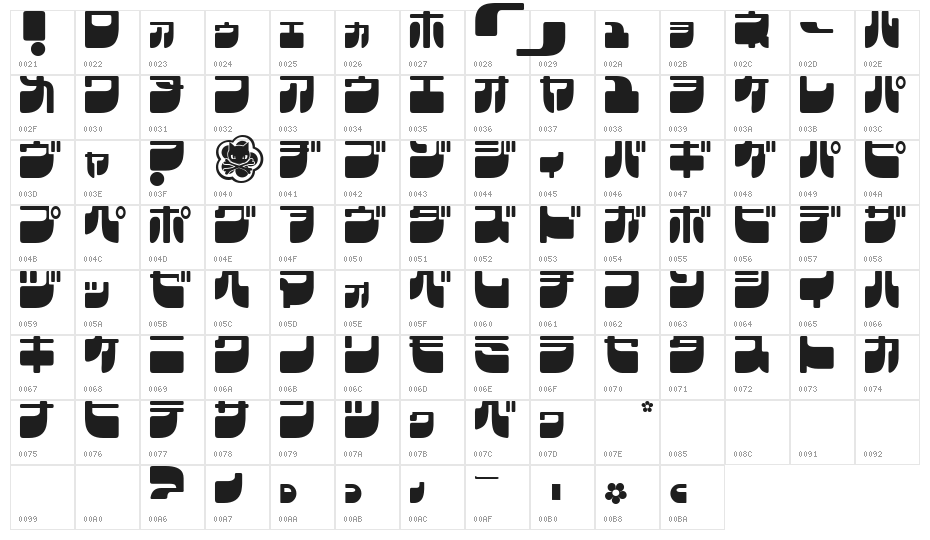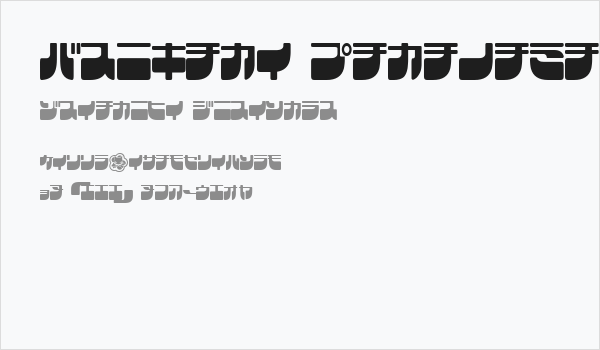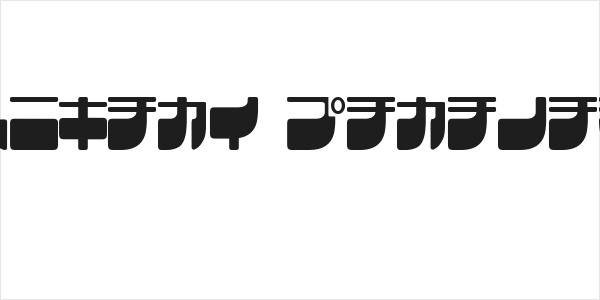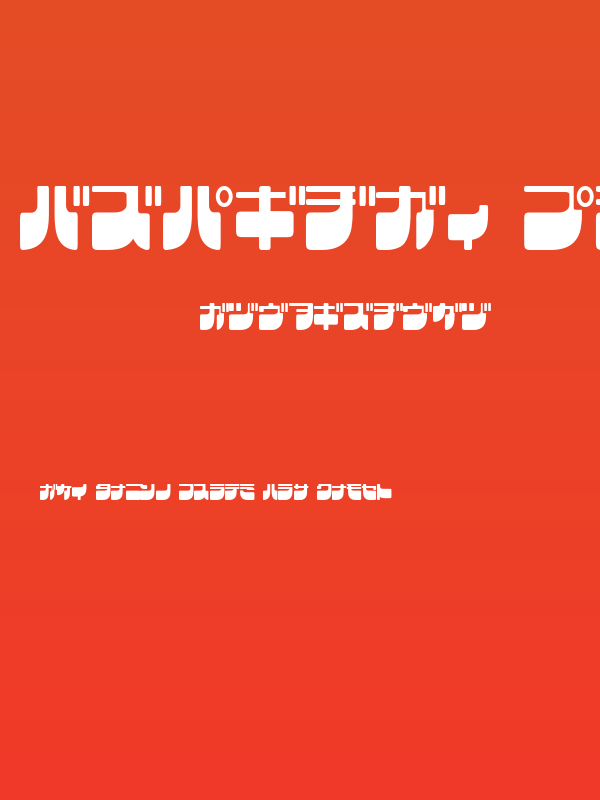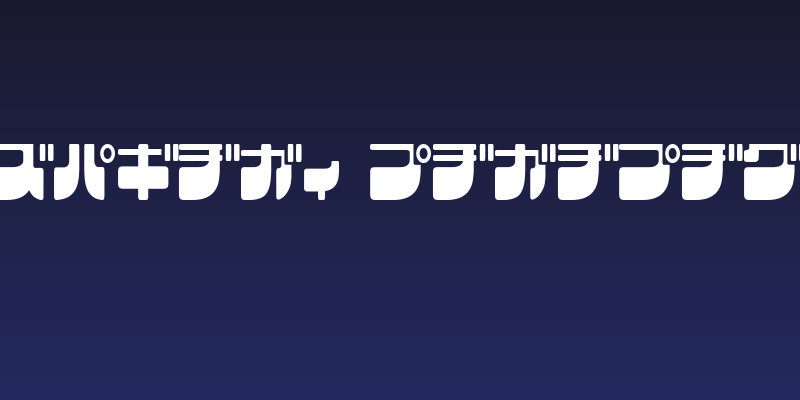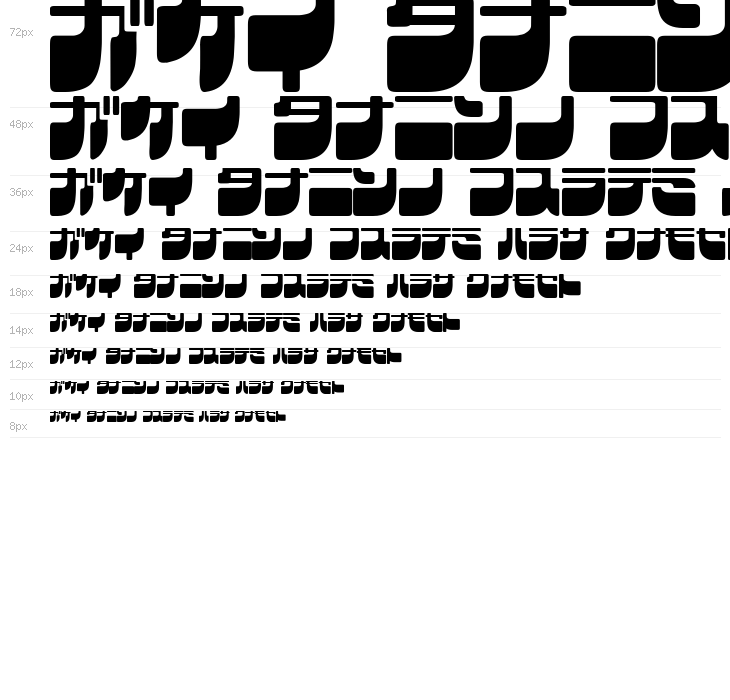
Frigate Katakana Font
Frigate Katakana Description
This font features a bold and futuristic design with a distinctly modern aesthetic. The characters are wide and blocky, with a strong presence that makes them stand out. The strokes are thick and uniform, contributing to a high contrast that enhances readability and impact. The overall style is geometric and structured, with a playful yet assertive tone. This font is ideal for projects that require a bold statement, such as branding, posters, or digital media. Its unique style captures attention and conveys a sense of innovation and creativity.